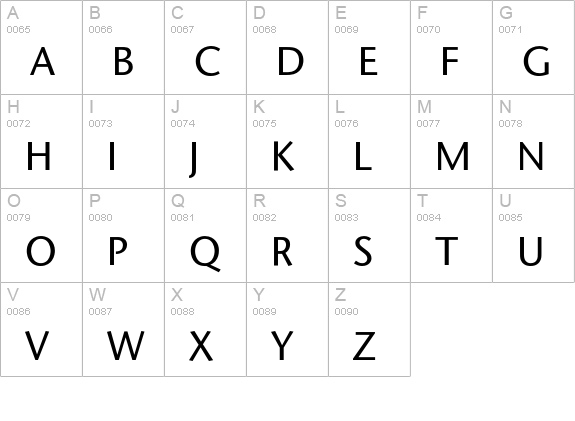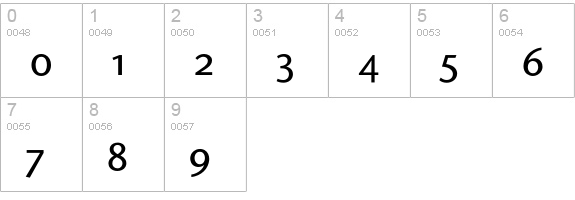
Stone Sans Expert Medium Font Details
Stone Sans Expert Medium is a balanced, medium-weight variant in the Stone typeface family \xE2\x80\x94 well suited to sub-headlines, navigation, and balanced editorial work.
Stone Sans Expert Medium font is a versatile and modern typeface designed for clear and impactful communication. With its balanced proportions and strong presence, this font is perfect for a wide range of design projects, from branding to editorial design. The medium weight strikes the ideal balance between elegance and readability, making it a popular choice for headlines, subheadings, and body text. What sets Stone Sans Expert Medium font apart is its clean lines and subtle geometric shapes, giving it a contemporary and professional look. Whether used in print or digital media, this font exudes sophistication and style, making your text stand out with a touch of elegance. The best part? Stone Sans Expert Medium font is available for free download at FontsMarket.com, making it accessible to designers, students, and anyone looking to enhance their projects with a high-quality typeface. Don't miss out on the opportunity to elevate your designs with this exceptional font that blends functionality with aesthetic appeal.